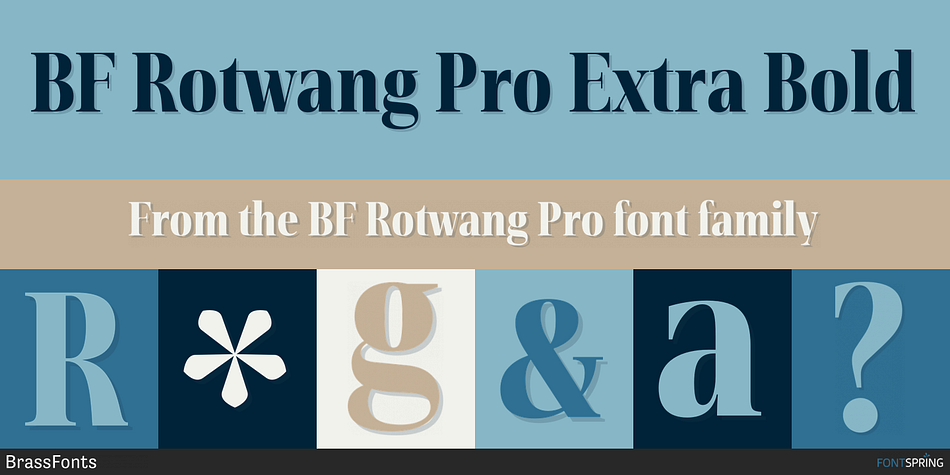
BF Rotwang Pro Extra Bold
Designed by Guido Schneider, BF Rotwang Pro is a serif font family. This typeface has fourteen styles and was published by BrassFonts.
The BF Rotwang™ Pro is a contemporary new edition and re-design of an formerly design by Guido Schneider.
Named after the C.L. Rotwang, the inventor of the Mensch-Maschine from the film Metropolis (1925/1926), BF Rotwang plays with the character traits of high-contrast transitional serif typefaces and Didone-style typefaces.
BF Rotwang is a typeface characterized by balanced elegance. It is sensitive, sophisticated and self-confident, but unobtrusive. The heavy weights have the power and dynamic for strong headlines and exciting logotypes, the lighter cuts the elegance and lightness for use in continuous text. All letters and characters are a touch condensed, so the typeface looks compact and works space-saving.
BF Rotwang™ Pro supports up to 200 Latin-based languages. The family comes with 7 weights plus matching Italics. Each font contains more than 1.220 glyphs, featuring a wide range of alternate characters, small caps, figure sets, fractions, more than 35 ligatures, many currency symbols, special characters and other useful symbols.
The style sets give you the option to individualize and adjust the typeface to the requirement of your design, without changing the general visual feeling.